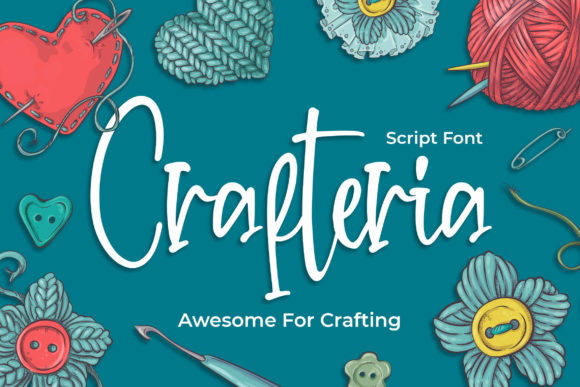
Crafteria Font
Crafteria Font: Where Enchantment and Elegance Intertwine
Embark on a creative odyssey with Crafteria Font, a script masterpiece crafted by Blankids Studio. This enchanting font captivates with its playful charm and irresistible elegance, a perfect fusion of innocence and sophistication. Its meticulously designed characters dance across the page, inviting you to create captivating designs that speak to the heart.
With Crafteria, you can effortlessly transform your creative visions into stunning realities. Its versatility shines across a vast array of applications, from branding and packaging to greeting cards and invitations. Let Crafteria’s unique personality elevate your logos, advertisements, and social media posts, leaving a lasting impression on your audience.
Immerse yourself in a world of boundless creativity as Crafteria brings your words to life. Its charming touch adds a dash of whimsy to children's books and educational materials, while its elegant strokes lend a touch of refinement to wedding invitations and love letters. Crafteria's versatility extends to the digital realm, where it graces websites, blogs, and online advertisements with its captivating presence.
Unleash the boundless potential of Crafteria and witness the transformation of your designs. Let its playful spirit ignite your imagination and lead you to new creative horizons. Experience the magic of Crafteria and discover a font that captivates, enchants, and leaves an unforgettable mark on all who encounter it.